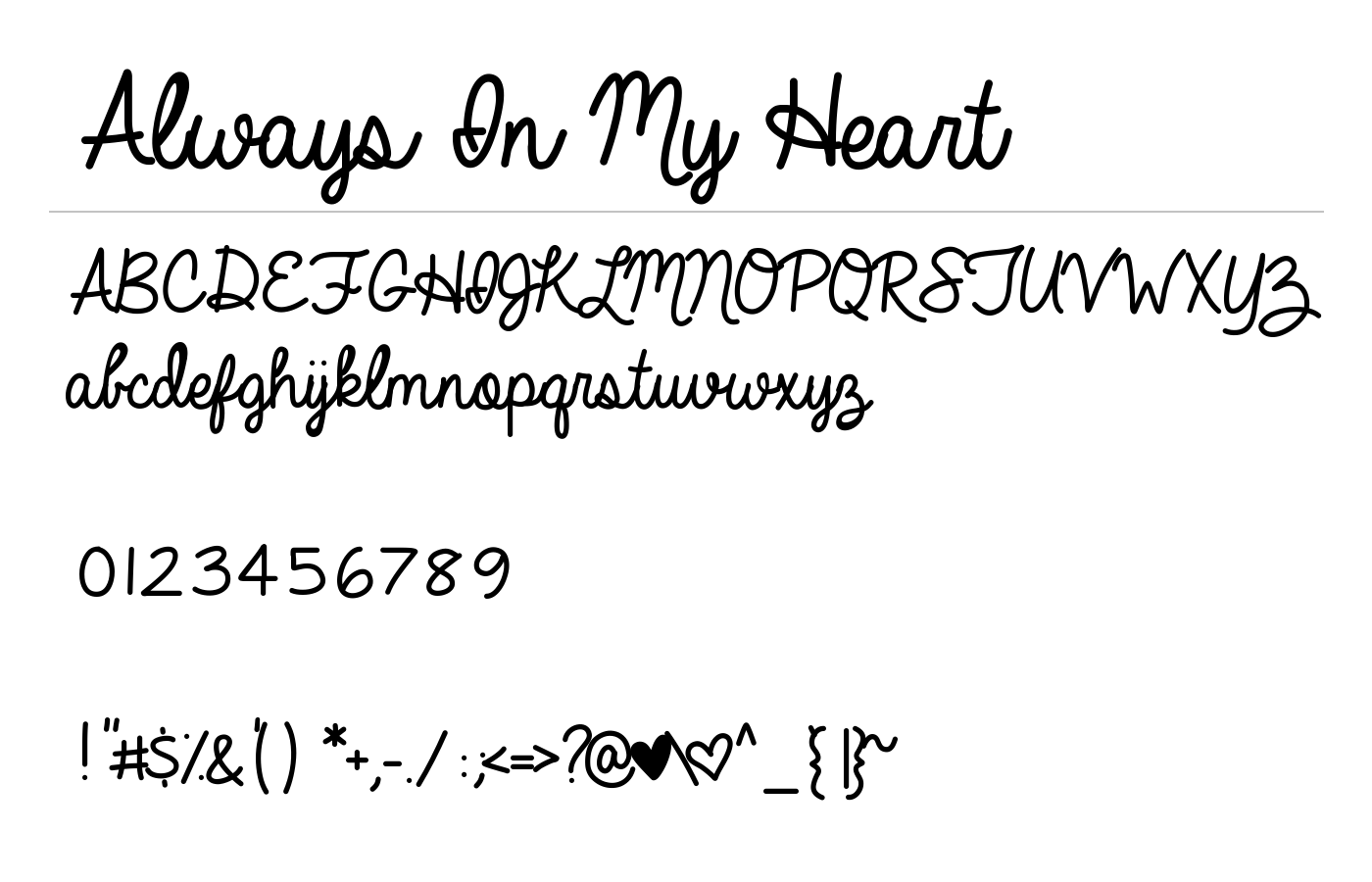
Always In My Heart is a playful and casual handwritten script font with a warm, personal touch. Its smooth, flowing lines and moderate x-height create an inviting and friendly feel, perfect for projects that want to convey sincerity and affection. This font works beautifully for greeting cards, invitations, branding with a heartfelt vibe, and any design seeking a charming, informal style.
Always In My Heart Font
About Always In My Heart Font